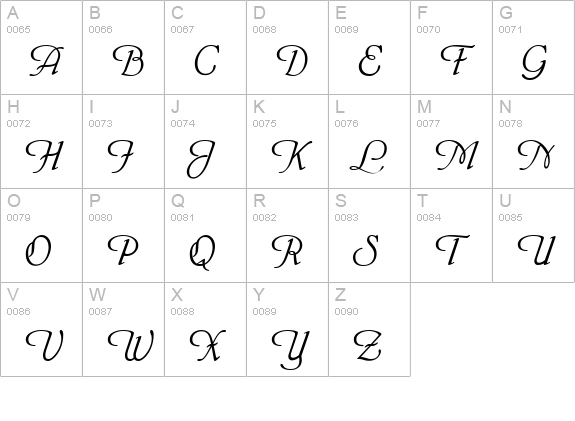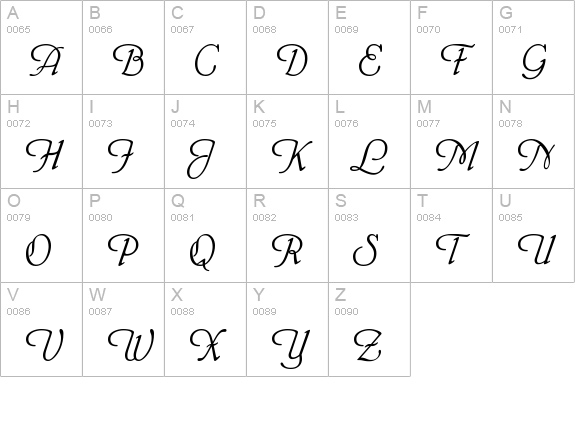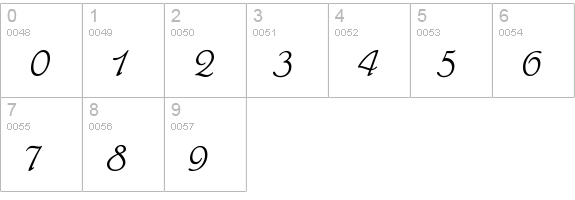
CgPhyllis font is a stunning and elegant typeface that exudes sophistication and charm. Its unique design features delicate curves and intricate details that make it perfect for a variety of design projects. Whether you're creating invitations, logos, or branding materials, CgPhyllis font will add a touch of class to your work. What sets CgPhyllis font apart is not only its beauty but also the fact that it is completely free to download. Yes, you read that right - this exquisite font is freely available for download at FontsMarket.com. Don't miss out on the opportunity to add this gorgeous typeface to your collection and elevate your designs to the next level. Download CgPhyllis font today and let your creativity shine!